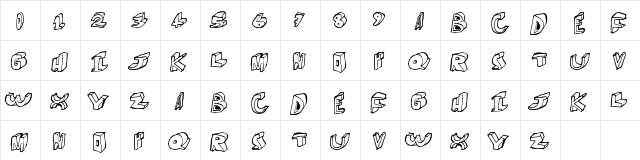
MoreDimension Regular
Design Context for MoreDimension Typeface
MoreDimension is a composed and adaptable typeface that performs quietly and consistently across a wide range of design contexts.